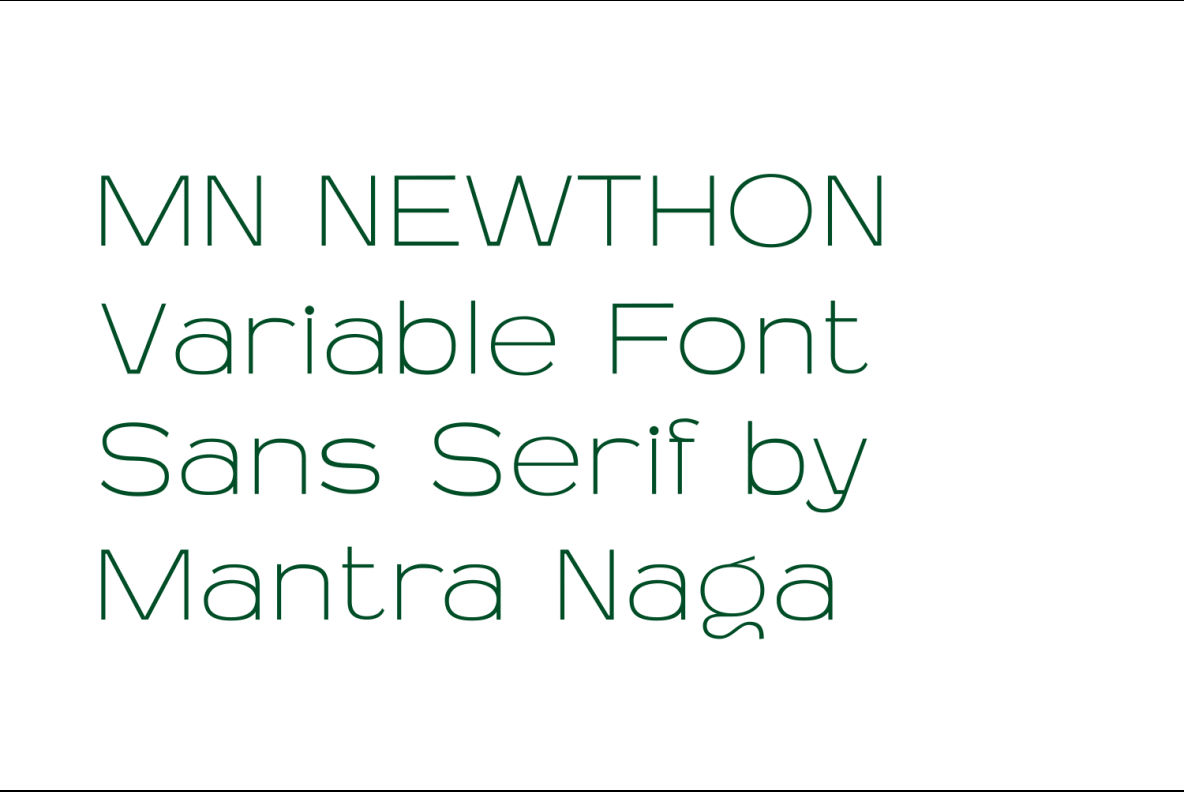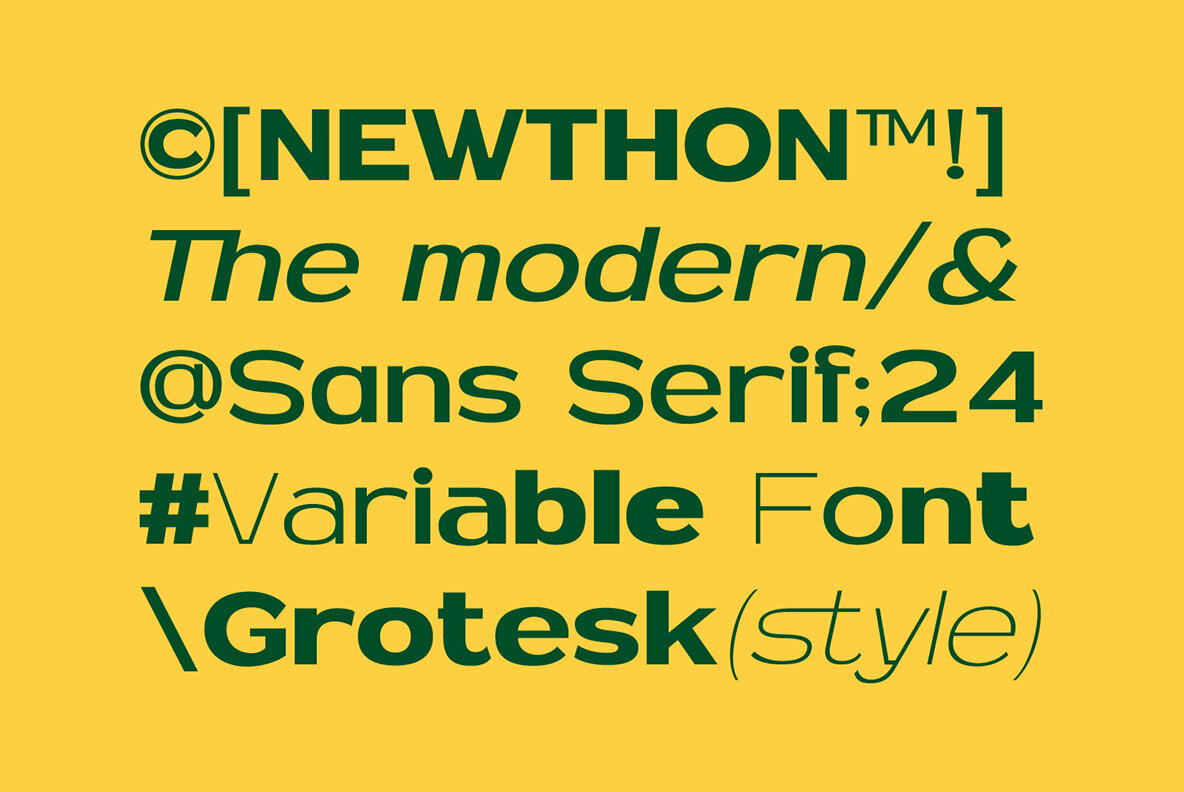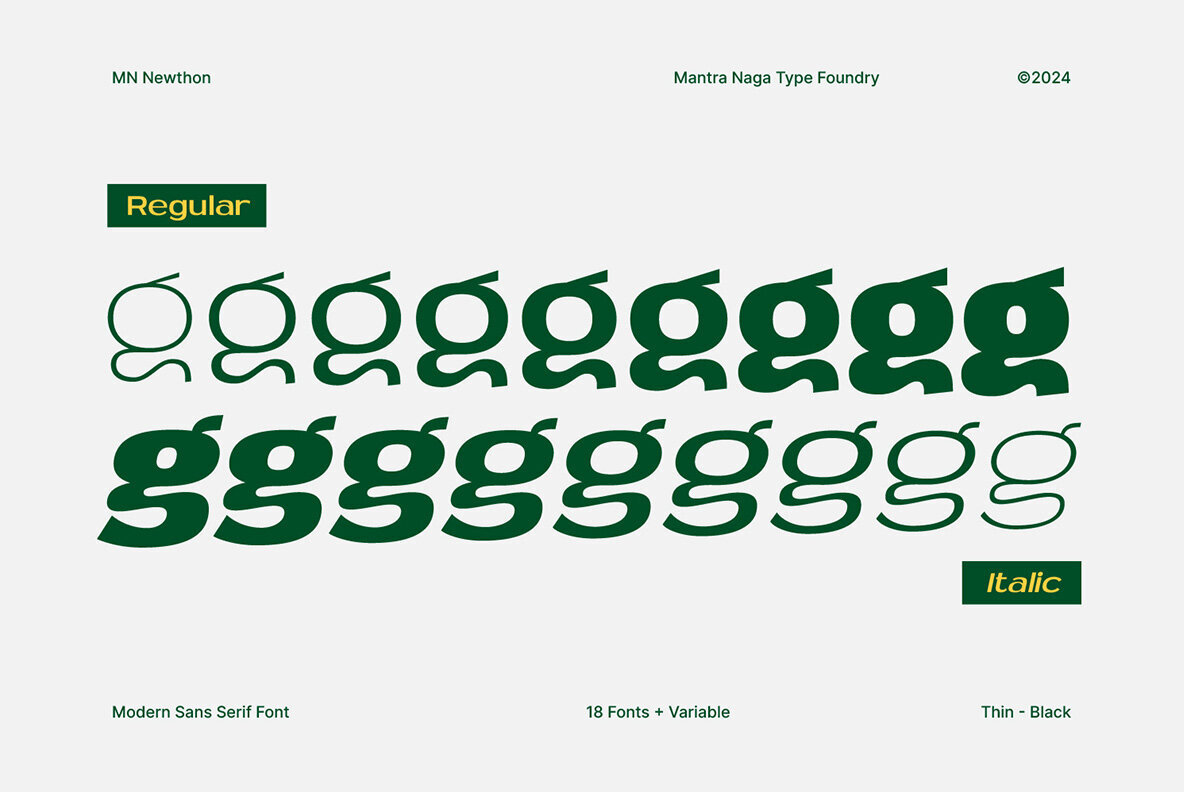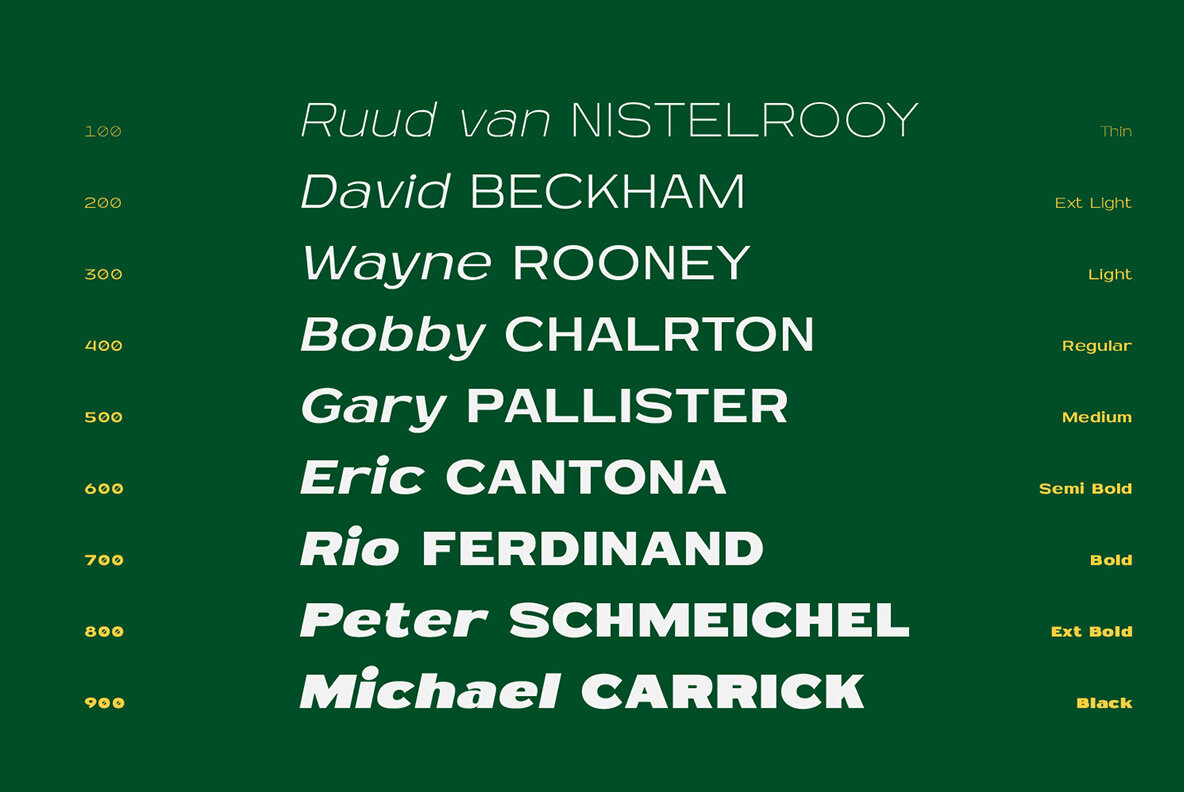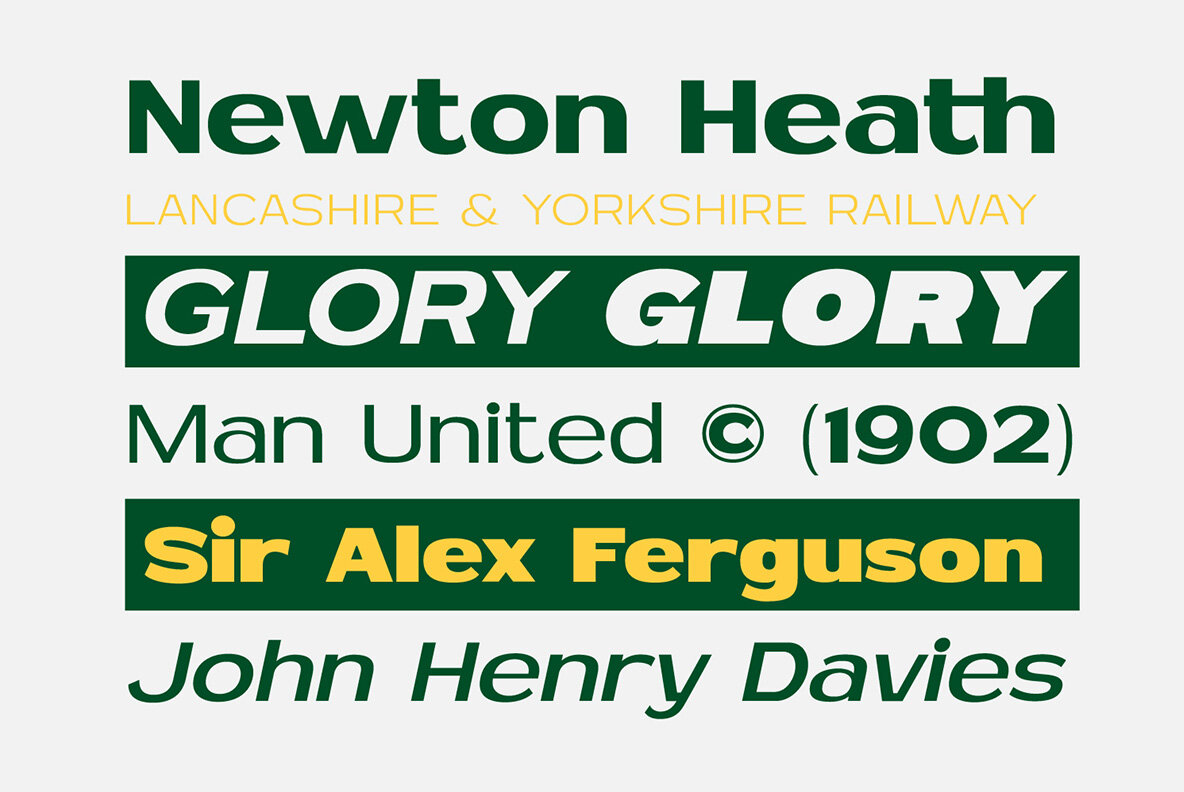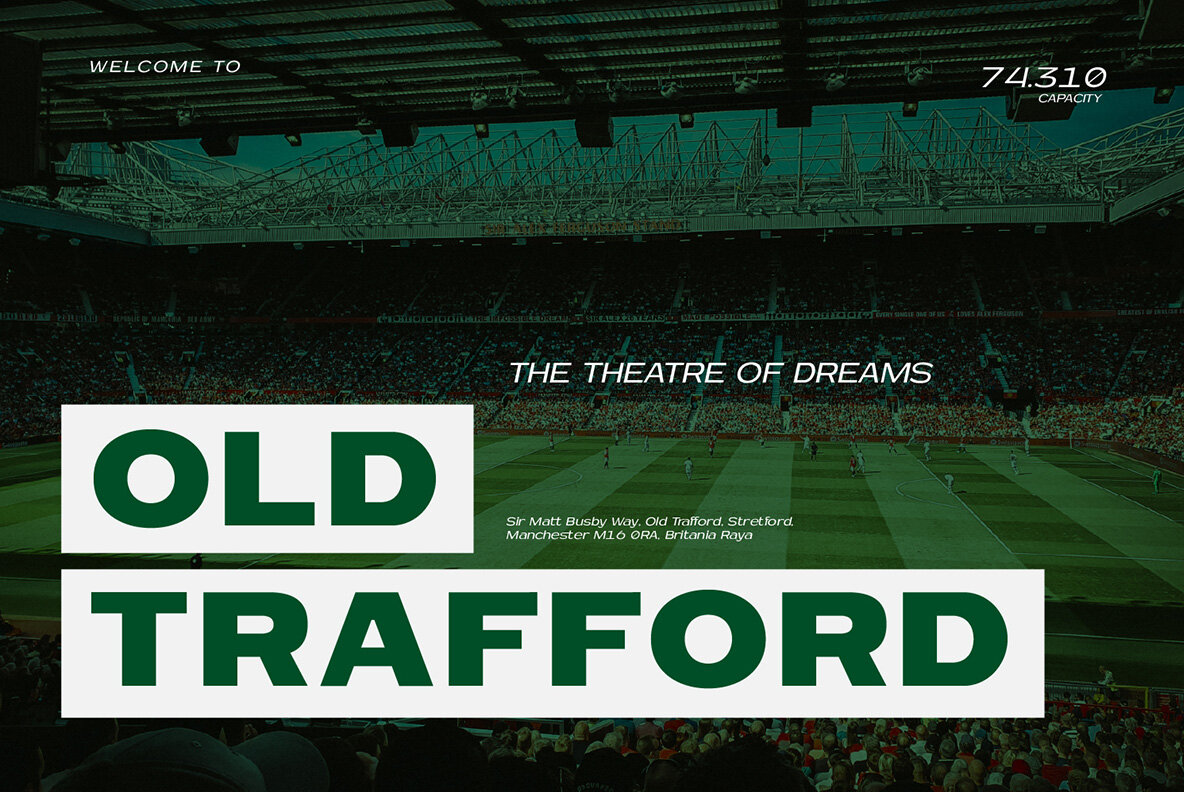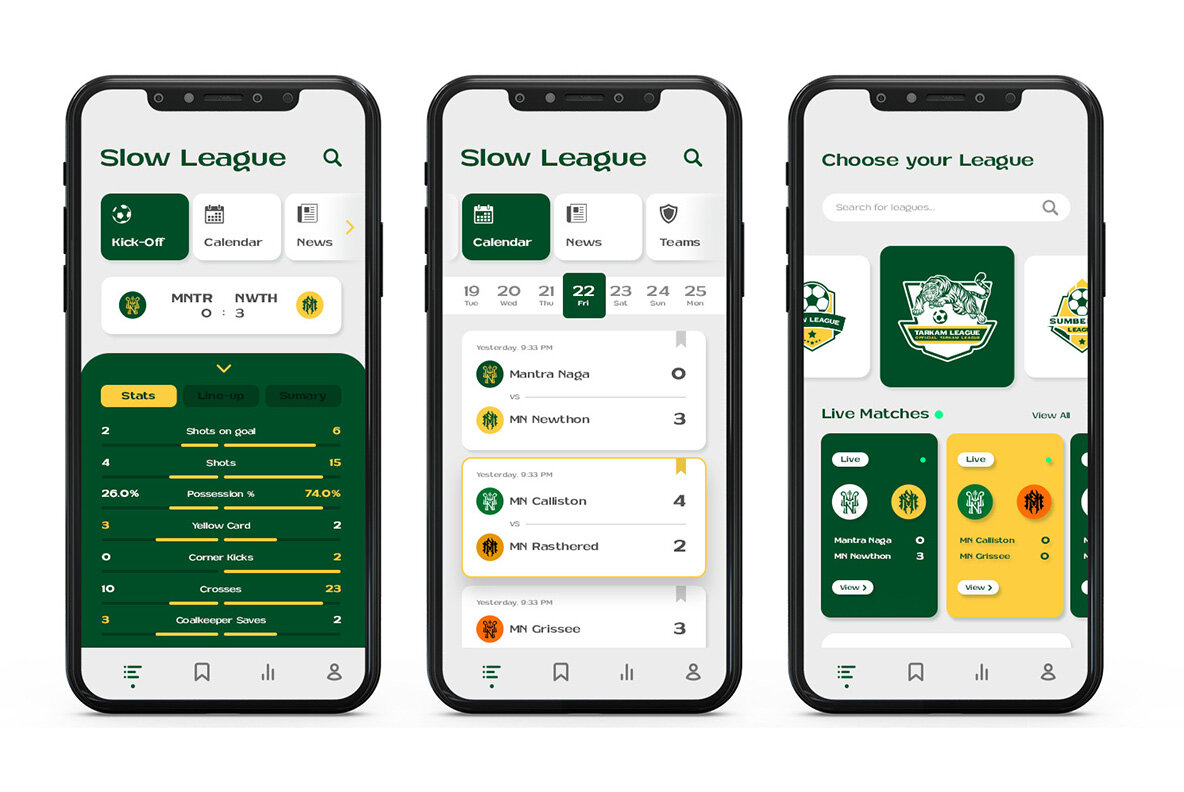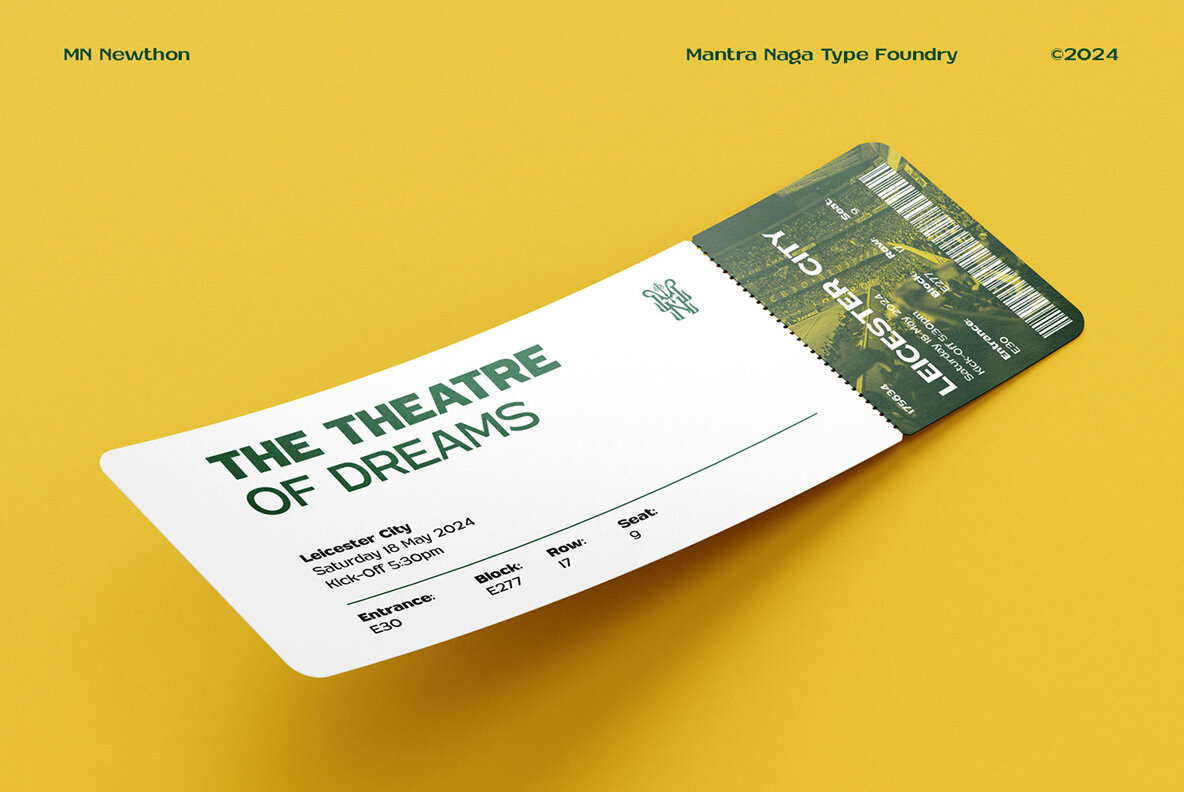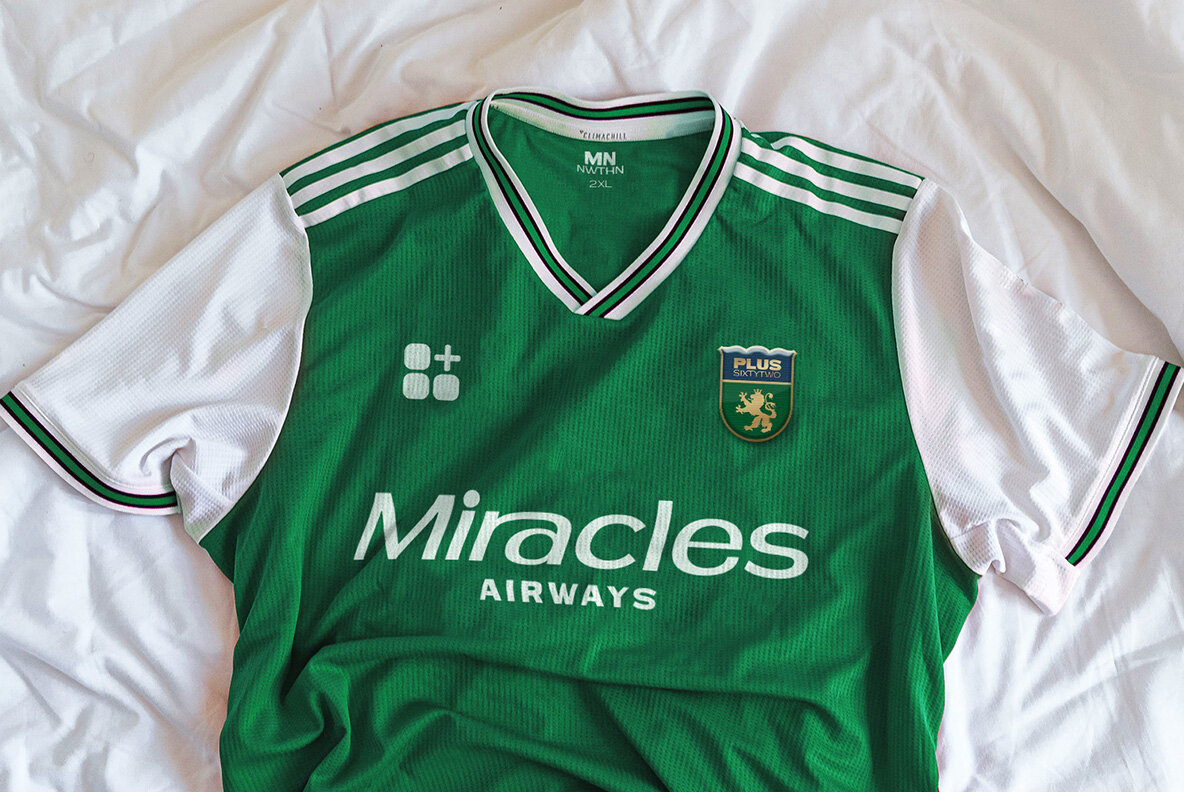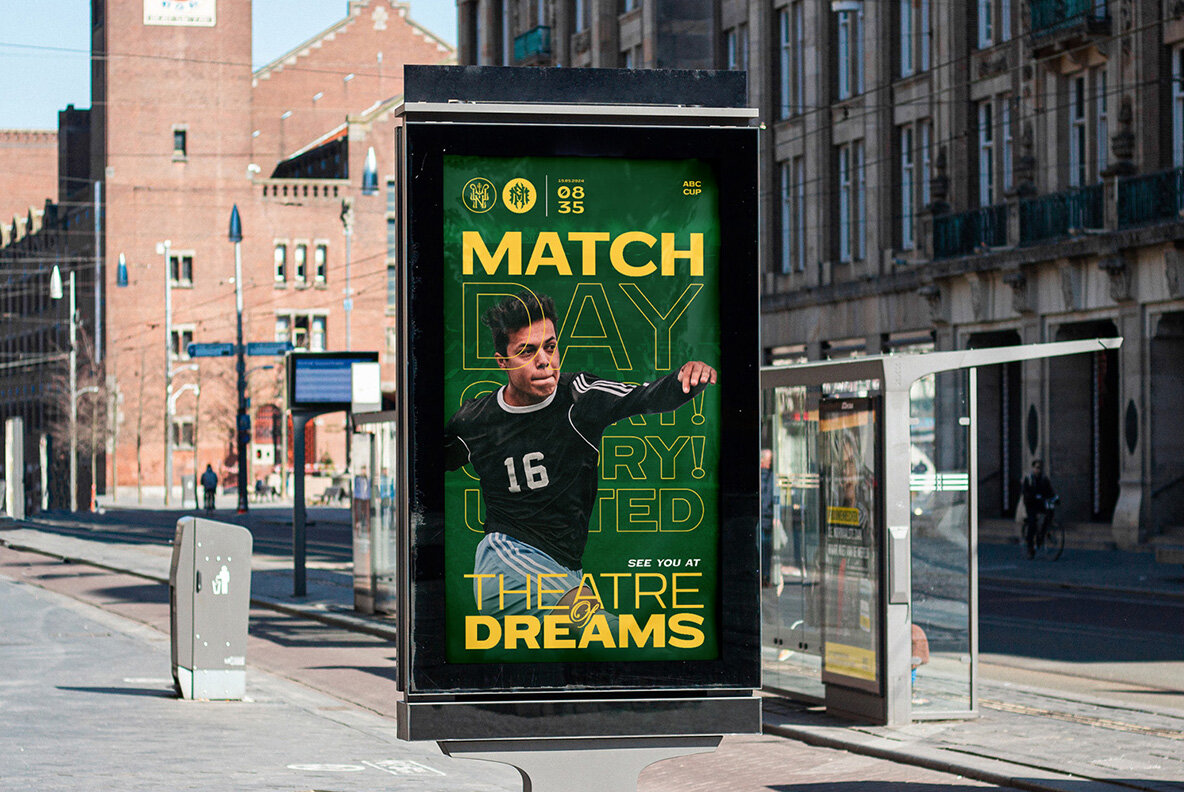
MN Newthon Font
MN Newthon is a versatile sans serif family font inspired by the typeface used in the logo of the football club Newton Heath L&YR, the original name of Manchester United Created with the aim of uniting all Manchester United supporters and commemorating the club’s legacy, this typeface becomes a visual symbol of the club’s outstanding achievements, both in Europe and worldwide. The design of MN Newthon is based on wide proportions, enriched with a blend of grotesque and modern styles and slight contrast to ensure optimal readability. This sans serif typeface consists of 18 fonts, encompassing 2 styles—regular and italic—with 9 weights ranging from thin to black, offering high flexibility in its usage. The variable font feature of MN Newthon allows users to adjust the font size according to their needs, whether for headings, paragraphs, or body text. Features of MN Newthon
• Variable font (18 font family)
• 2 Stylistic Alternates, Discretionary and Standard Ligature, Case Sensitive Symbol
• 9 Weights (Thin, Extra Light, Light, Regular, Medium, Semibold, Bold, Extrabold, Black)
• 2 Styles (Regular & Italic)